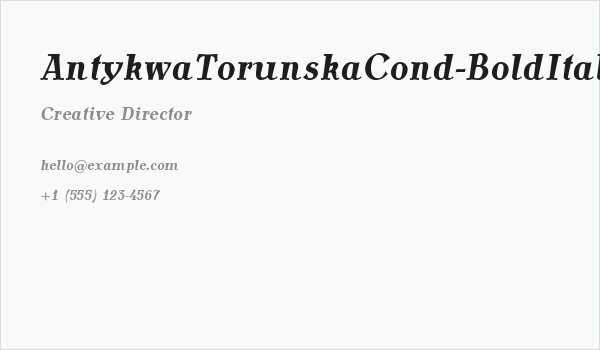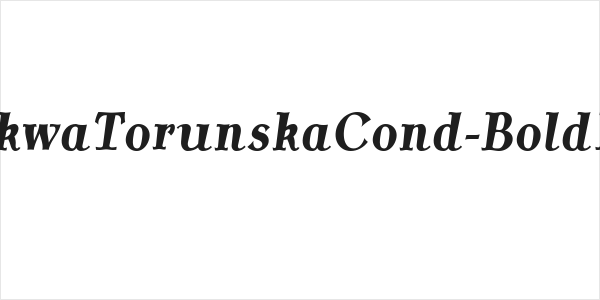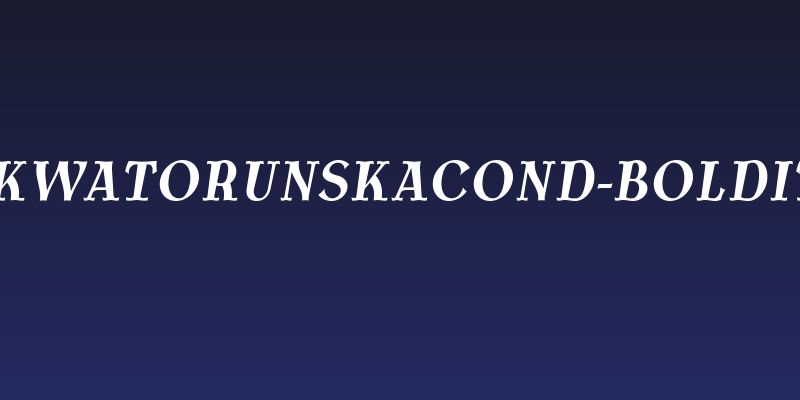
AntykwaTorunskaCond-BoldItalic Font
AntykwaTorunskaCond-BoldItalic Description
This font exhibits a classic serif style with a bold and italicized appearance, giving it a strong and dynamic presence. The characters are condensed, enhancing the compactness and making it suitable for space-conscious designs. The serifs are pronounced, adding a touch of elegance and tradition. The italic slant adds a sense of movement and sophistication, making it ideal for formal and impactful text. The numbers and special characters maintain the same bold and italic characteristics, ensuring consistency across all glyphs. The overall design is both authoritative and refined, suitable for a variety of professional applications.
| Use Case | Headlines, Logos, Editorial design |
| Proposed Projects | Ideal for book covers, formal invitations, branding materials, and editorial design. |